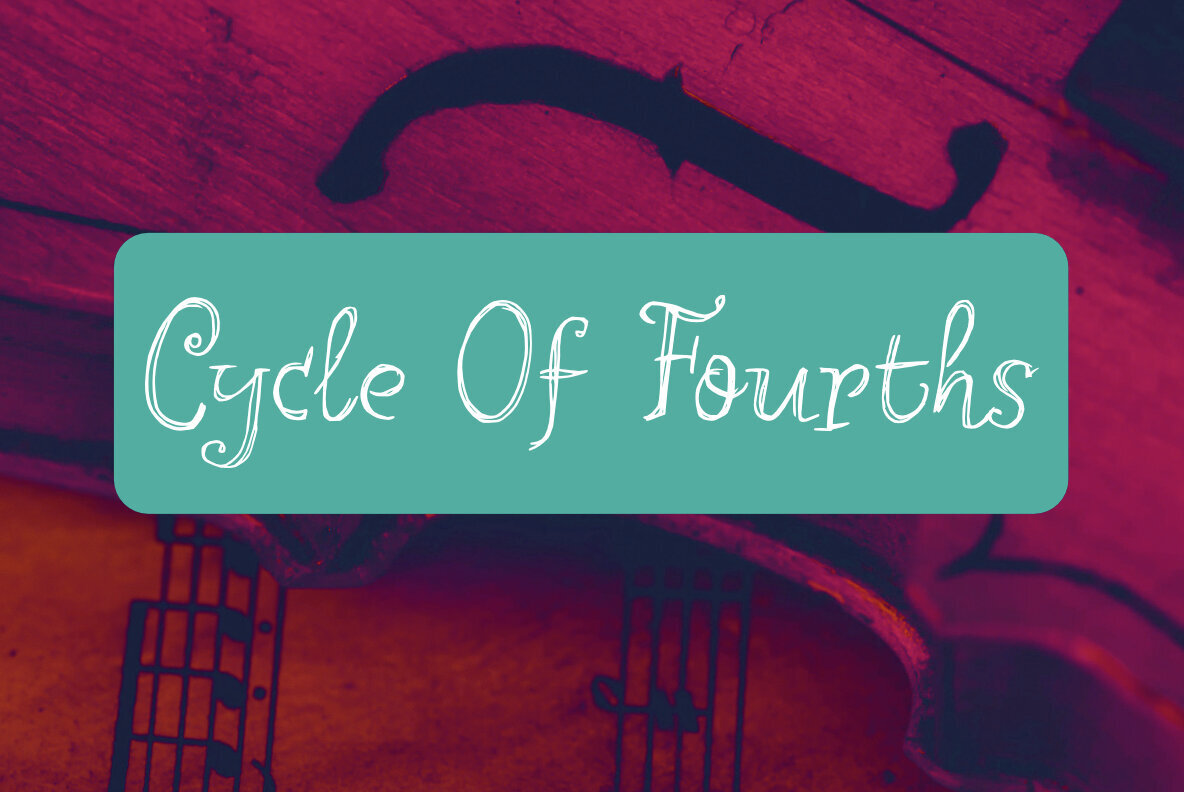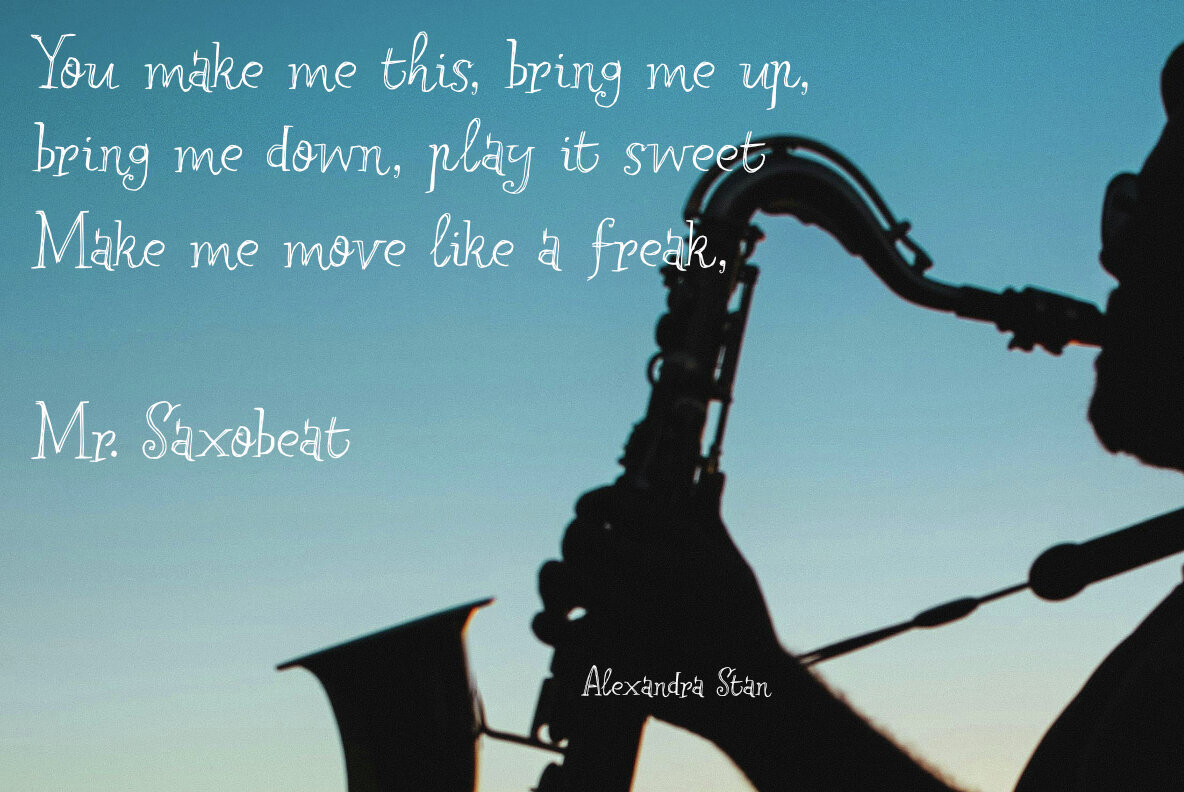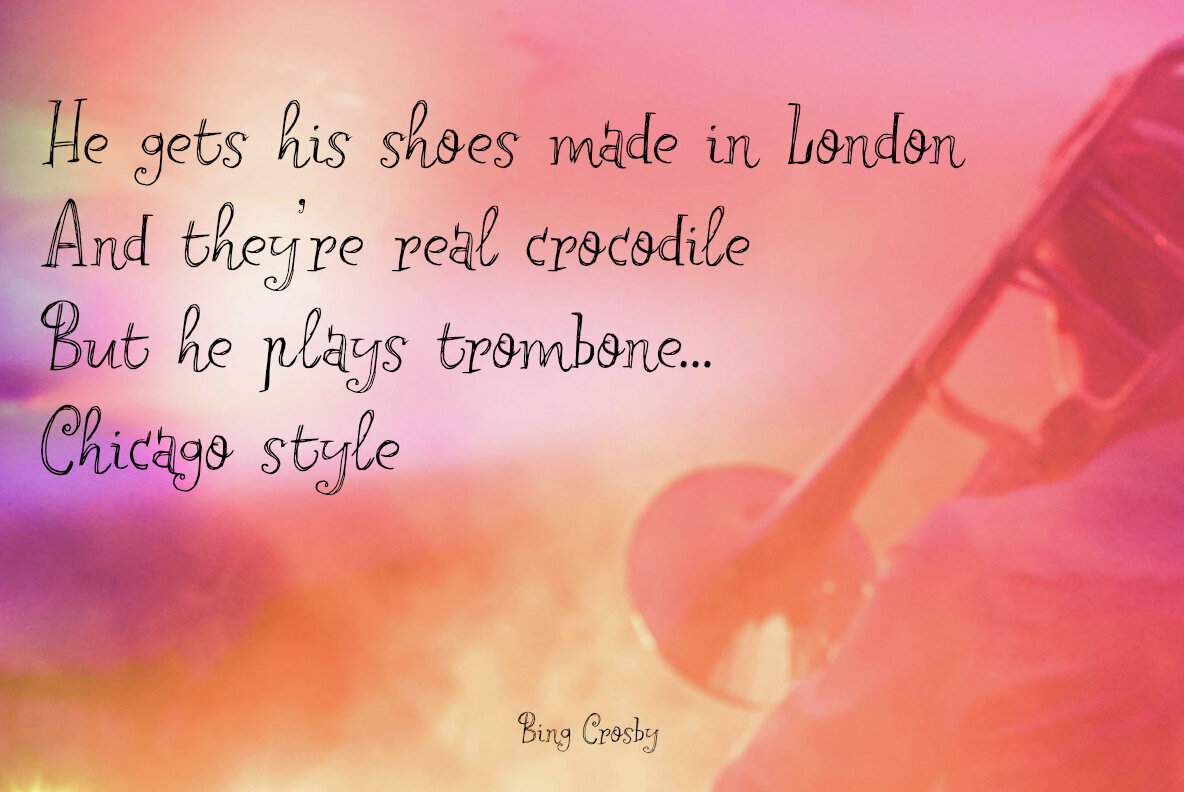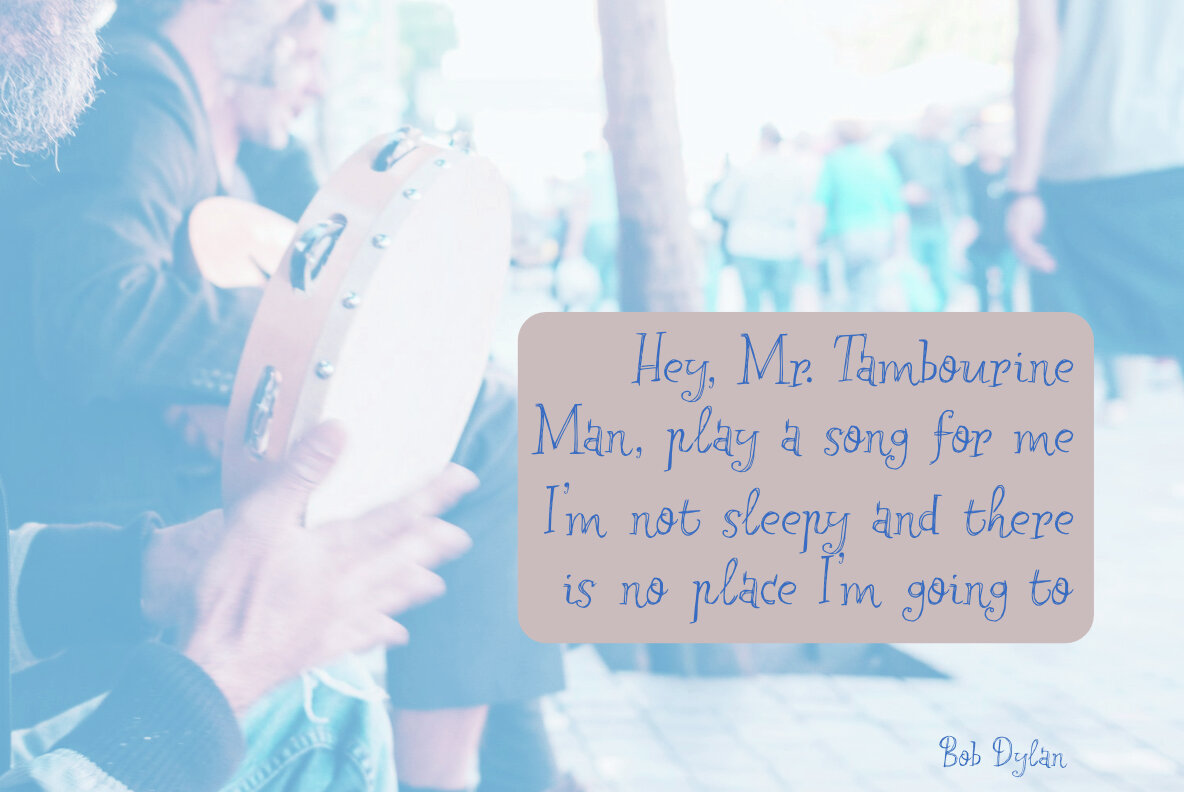
Cycle Of Fourths Font
Discover the charm of Cycle Of Fourths, an elegant handmade font that strikes a balance between old-fashioned whimsy and modern uniqueness. With its gently curled design, this typeface brings a touch of sophistication to any project. It's inspired by the intriguing musical term, the Cycle Of Fourths, which guides its rhythmic flow and visual charm.Cycle Of Fourths Font